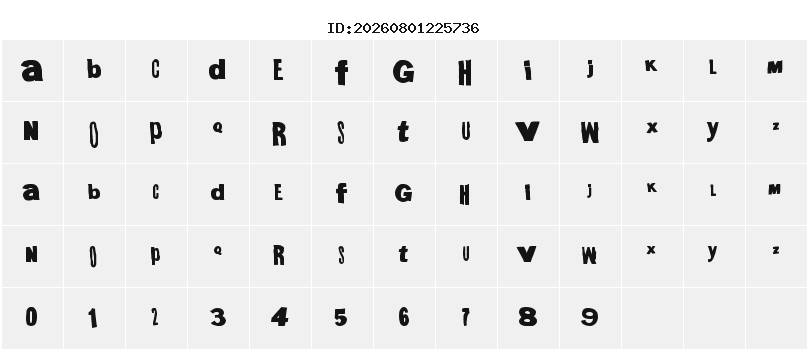
• Font Name: MegaGothic
• Designer: Xerographer Fonts Max Infeld
• Description: Made at Xerographer Studios in Chico,CA
About MegaGothic.ttf
MegaGothic.ttf is a modern, elegant sans-serif font designed for ultimate readability and visual harmony. Perfect for branding, headlines, web design, and print materials.